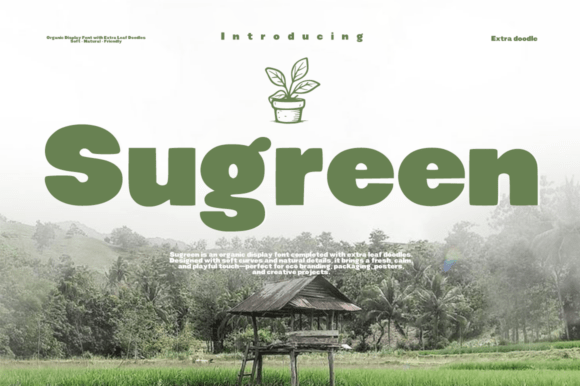
Sugreen: Nature's Embrace Display Font
In the crowded landscape of digital and print design, establishing an immediate emotional connection with an audience is often the difference between a fleeting glance and lasting engagement. For professionals seeking to communicate values of sustainability, wellness, and organic purity, the choice of typography becomes a critical strategic decision. Enter Sugreen, a display typeface designed not merely to convey information, but to evoke the serene atmosphere of the natural world. By integrating delicate curves and harmonious structures, this font offers a visual language that speaks directly to the eco-conscious consumer without requiring a single word of explanation.
The Philosophy Behind Organic Typography
Typography has long been the silent narrator of brand identity. While geometric sans-serifs suggest efficiency and modernity, and slab serifs imply tradition and stability, there is a distinct category of typefaces dedicated to evoking the feeling of growth and life. Sugreen belongs to this specialized niche. It draws its inspiration from the beauty of nature, translating the fluid lines of vines, the soft edges of leaves, and the gentle flow of water into letterforms. This is not simply a decorative choice; it is a functional approach to design psychology.
When viewers encounter text rendered in Sugreen, they are subconsciously primed for concepts related to health, freshness, and environmental stewardship. The font’s design language relies on soft, fluid curves and leafy decorative details that soften the rigidity often found in standard commercial fonts. For designers working in sectors like organic food, skincare, yoga studios, or sustainable fashion, using a typeface that aligns with the product's core mission can significantly reduce the cognitive load required to understand the brand's value proposition. It creates an instant "breathable" aesthetic that suggests the brand is as natural as the products it sells.
Visual Harmony and Structural Balance
The structural integrity of Sugreen lies in its ability to balance whimsy with readability. Many display fonts sacrifice legibility for ornamentation, becoming difficult to read in anything other than large sizes. However, Sugreen maintains a harmonious structure where the decorative elements—such as unique terminals and subtle flourishes—enhance rather than obstruct the message. The soft letterforms invite the eye to linger, creating a calm and approachable reading experience. This makes it particularly effective for headlines and logo marks where the goal is to capture attention while maintaining a sense of trust and serenity.
Furthermore, the inclusion of charming leaf doodles within the character set allows for seamless integration of botanical motifs directly into the text. This feature eliminates the need for separate graphic assets in many cases, streamlining the design workflow. Instead of searching for stock images of leaves to frame a headline, a designer can utilize the font's inherent decorative capabilities to create a cohesive, unified look. This efficiency supports creatives who need to produce high-quality visuals quickly without compromising on the bespoke feel of hand-drawn elements.
Strategic Applications for Eco-Friendly Branding
The versatility of Sugreen extends across a wide range of creative pursuits, making it a valuable asset for entrepreneurs, marketers, and small business owners looking to differentiate their brands. Its specific crafting for eco-friendly branding means it excels in scenarios where authenticity is paramount. Whether you are launching a new line of plant-based supplements or rebranding a local community garden, the right typeface can anchor your visual identity in the values you wish to project.
Packaging Design and Product Labels
For physical products, packaging is often the first point of tactile interaction with a customer. In the competitive market of organic goods, shelf appeal is crucial. Sugreen brings a fresh, "breathable" aesthetic to packaging designs, conveying a sense of health and sustainability instantly. When paired with Earth-toned color palettes and natural textures such as recycled paper or kraft cardstock, the font amplifies its botanical charm. The soft curves of the letters mimic the organic shapes found in nature, reinforcing the idea that the contents inside are pure and unprocessed.
Consider a scenario where a small business owner is designing labels for a line of artisanal teas. Using a stark, industrial font might clash with the delicate nature of the product. Conversely, Sugreen articulates exceptionally well in these ornamental contexts. The unique terminals of the characters add a touch of elegance without appearing overly formal, striking a balance that feels both premium and accessible. This helps the product stand out on a shelf dominated by generic, mass-market competitors.
Digital Presence and Social Media Graphics
In the digital realm, attention spans are short, and visual impact must be immediate. Interactive social media graphics require typography that is not only readable on small screens but also emotionally resonant. Sugreen serves as a powerful tool for creating content that stops the scroll. Its serene, welcoming visual persona is ideal for wellness-focused visual identities, such as Instagram posts for yoga instructors, blog headers for lifestyle writers, or promotional banners for eco-tourism agencies.
Designers can leverage the font's ability to energize eco-brand identities by using it for key headlines and call-to-action buttons. The organic feel of the typeface encourages users to engage with the content, fostering a sense of connection that rigid, corporate fonts often fail to achieve. Additionally, the font works beautifully in naturalistic narrative crafting, making it suitable for storytelling elements in websites or e-books where the tone needs to remain consistent with themes of growth and harmony.